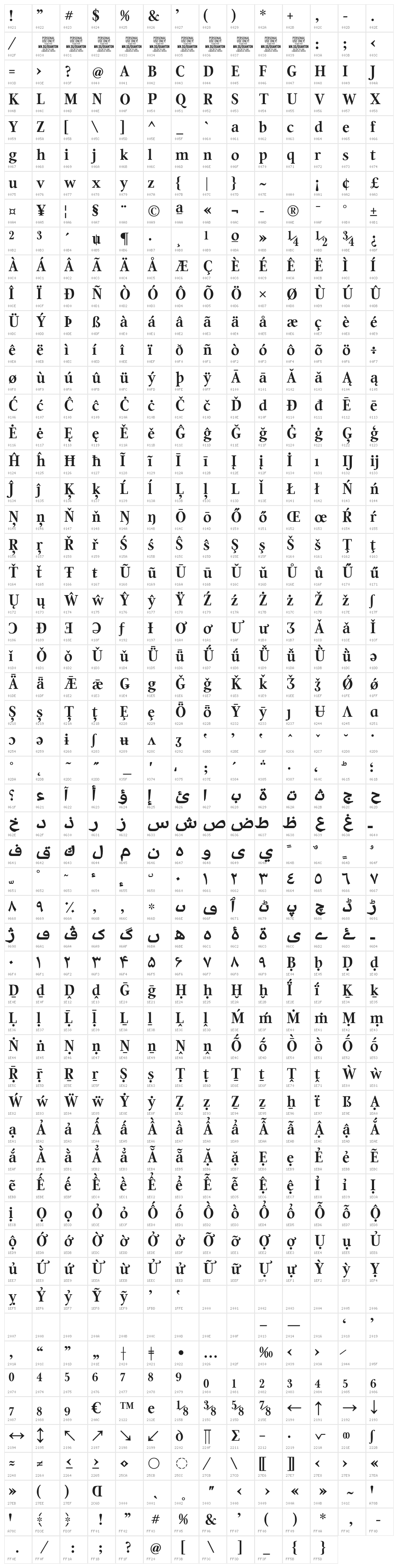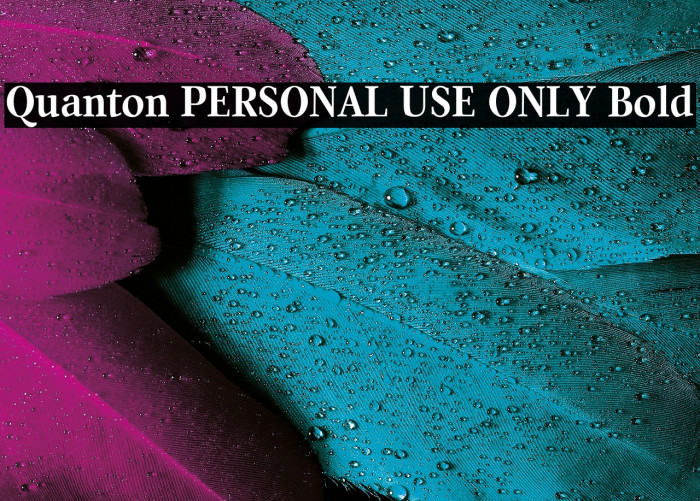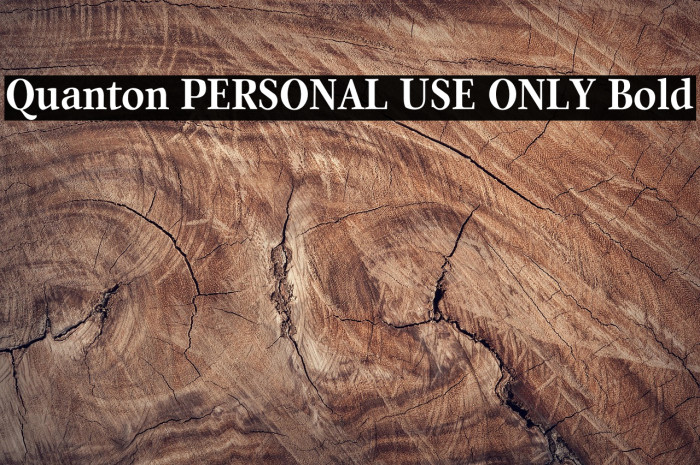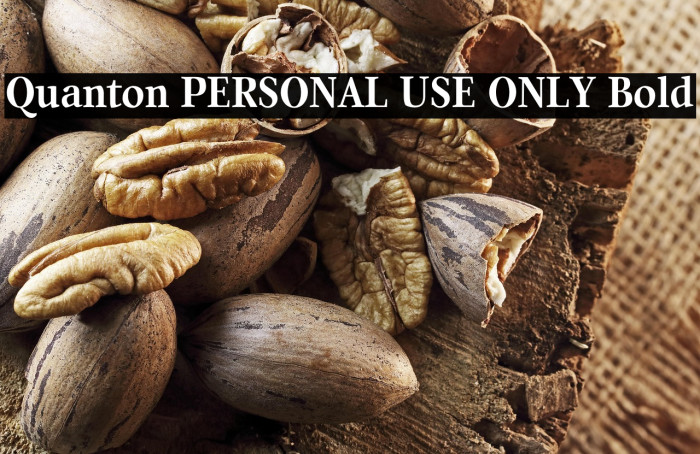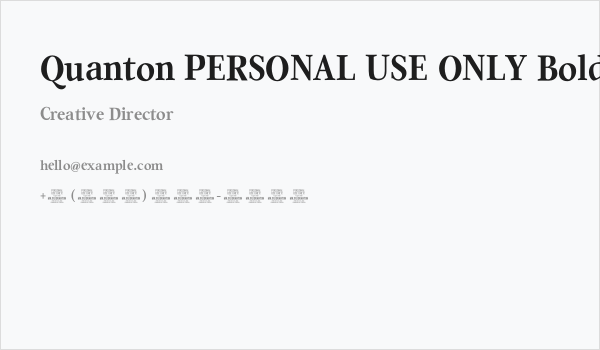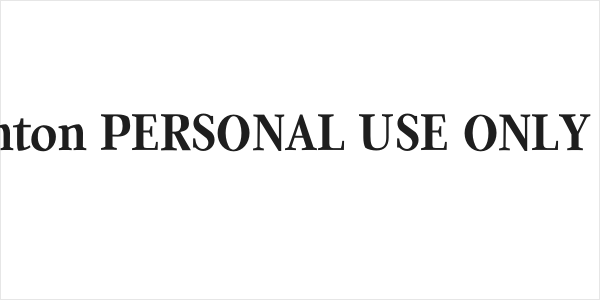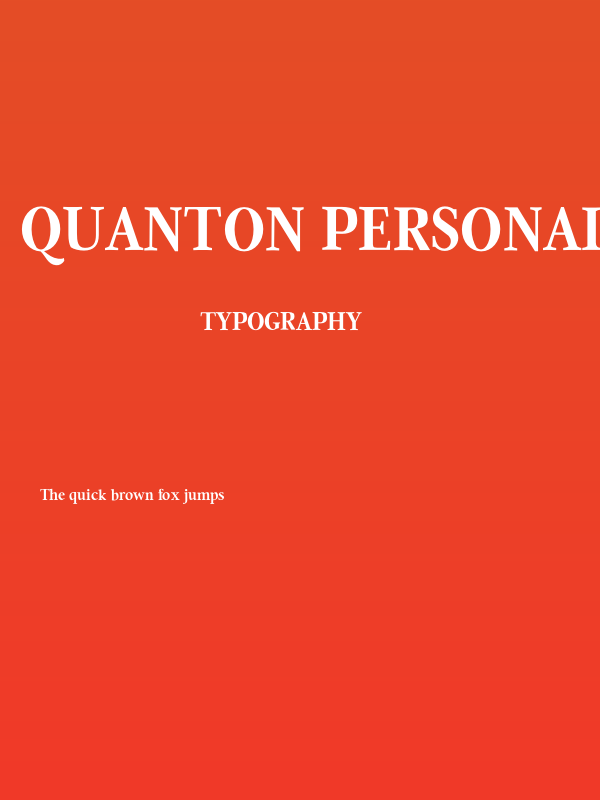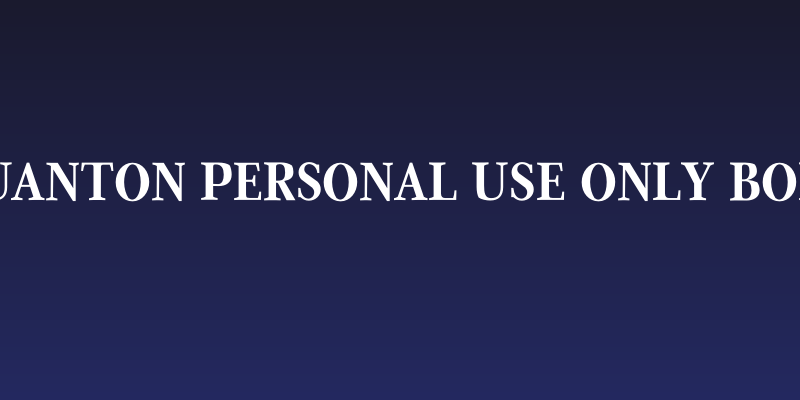
Quanton PERSONAL USE ONLY Bold Font
Quanton PERSONAL USE ONLY Bold Description
This font exhibits a bold and commanding presence with its strong serif features. The uppercase letters are robust and well-defined, providing a sense of authority and confidence. The lowercase letters maintain a consistent style, offering a harmonious blend with the uppercase. The numerals are clear and easily distinguishable, making them suitable for various applications. Special characters are crafted with precision, ensuring they complement the overall aesthetic. The font's bold weight and classic serif design make it ideal for projects that require a touch of elegance and strength.
| Proposed Projects | Ideal for headlines, book covers, branding, and editorial design. |